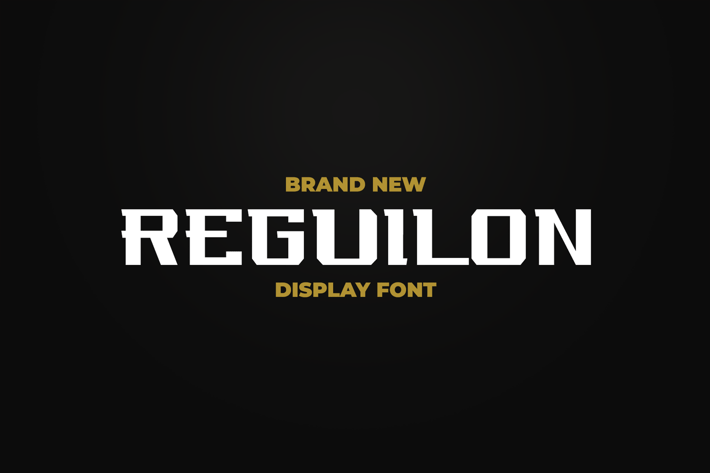
REGUILON SPORT DISPLAY FONT
REGUILON SPORT font, is our new item that suitable for your team logo, or community logo.
Great for Logo, Sticker, Jersey, Invitation Card, Brochure, etc.